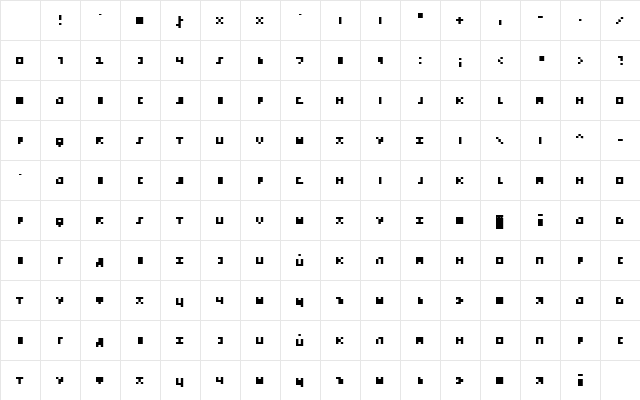
Complete emp_pix Regular glyph index. Displaying only characters natively supported by emp_pix Regular font.
emp_pix is a composed and adaptable typeface that performs quietly and consistently across a wide range of design contexts.